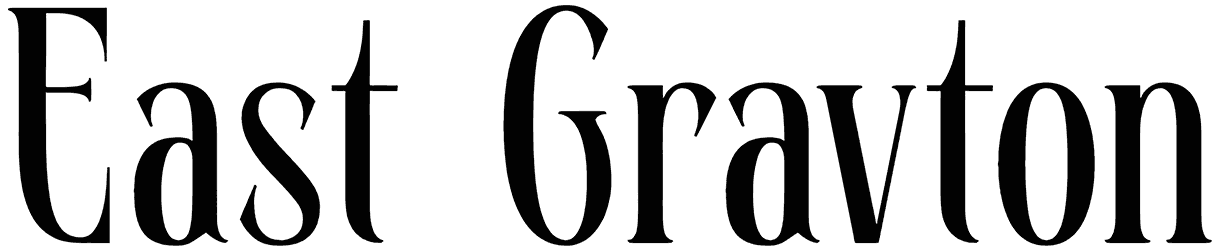
East Gravton Font
You’ll gladly accept the assertive tone of East Gravton when you’re preoccupied with absorbing all its beauty. It’s not going to be easy to take your eyes off such splendid characters when all you can think about is how charming this newspaper font is.
The way those sharp serifs of East Gravton’s tall letters work on the audience is nothing short of magic. Doesn’t that make this gold font ideal for your watch store signs, concert posters, library logos, and more?